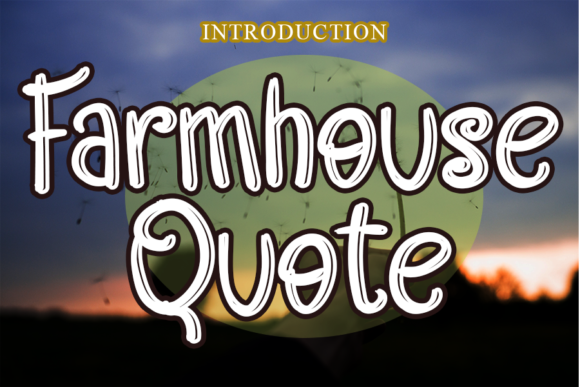
Embark on a typographic journey with Farmhouse Quote, a display font that dances with playful charm and quirky elegance. This unique creation by merge354 is guaranteed to make your designs shine.
Let your imagination run wild as you explore the endless possibilities that Farmhouse Quote brings. Craft eye-catching letterheads that command attention, leaving a lasting impression on your audience. Design titles that pop, demanding a second glance and sparking curiosity. Whether you're creating personal stationery or professional documents, this font will add a touch of whimsy and sophistication to your work.
Don't miss out on the opportunity to let your creativity shine. Dive into the world of Farmhouse Quote today and watch your designs transform into captivating works of art. Embrace the uniqueness, the playfulness, and the undeniable charm of this remarkable font.
With Farmhouse Quote by your side, your designs will stand out from the crowd. Experience the joy of creating with a font that's as captivating as it is versatile. Let your imagination soar and let Farmhouse Quote guide you to typographic greatness.
The time is now. Unleash your creativity with Farmhouse Quote and watch your designs come alive. Step into a world where fonts dance and words ignite imaginations. Discover the endless possibilities that await you with this remarkable display font.